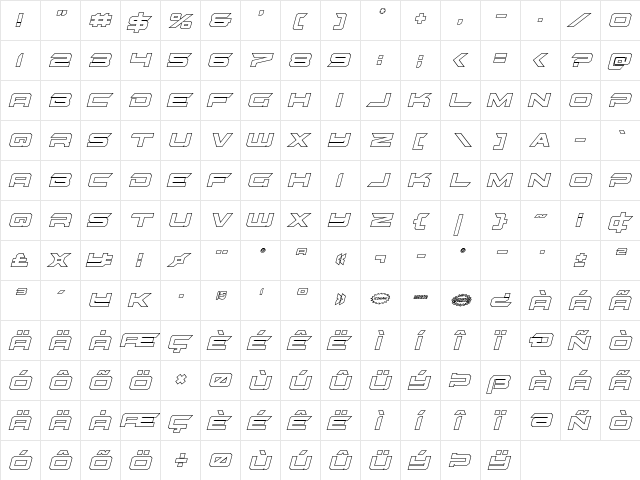
Gypsy Killer Outline Italic Italic
Design Context for Gypsy Killer Outline Italic Typeface
Gypsy Killer Outline Italic is built around its visual character rather than neutral utility — its distinctive forms are designed to make an impression at display sizes. The dynamic lean of this cut emphasises speed and emphasis in any layout.
Font Pairing: Pair with a clean neutral sans-serif for body copy to let Gypsy Killer Outline Italic's character lead without overwhelming the composition.
Pro Tip: Treat Gypsy Killer Outline Italic as the centrepiece of your typographic hierarchy. One strong heading set in a decorative face can carry an entire layout.